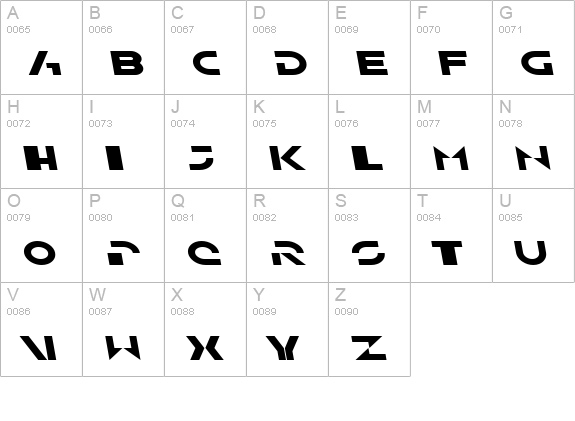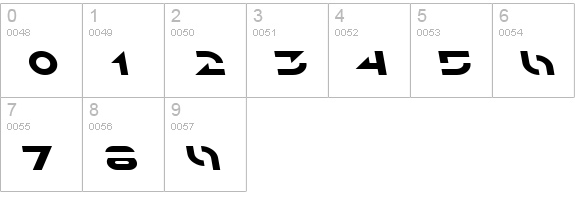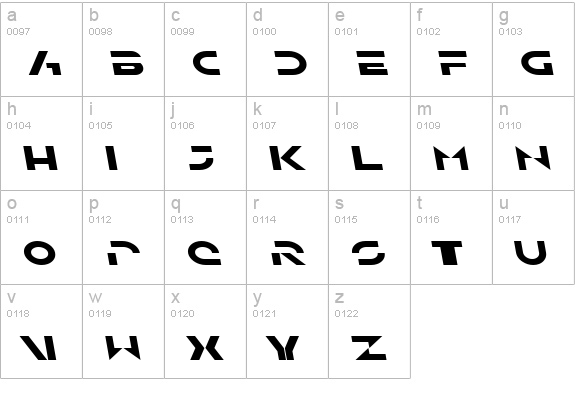
SF Solar Sailer Extended Italic Font Details
SF Solar Sailer Extended Italic is a distinctive, extended-width, italic variant in the SF typeface family \xE2\x80\x94 well suited to design and typography projects.
SF Solar Sailer Extended Italic font is a captivating and stylish typeface that will add a touch of elegance and modernity to your designs. The extended italic design gives it a sleek and sophisticated look, making it perfect for branding, headlines, and editorial projects that require a unique and eye-catching typography. The SF Solar Sailer Extended Italic font boasts a fusion of futuristic and classic elements, creating a harmonious balance between the past and the future. Its smooth curves and slightly slanted letters lend a sense of movement and energy, making it an excellent choice for projects that need to convey dynamism and forward-thinking. This font is not only aesthetically pleasing but also highly versatile. Its legibility and readability make it suitable for various design purposes, including print and digital media. Whether you're designing a logo, creating a poster, or developing a website, SF Solar Sailer Extended Italic font will elevate your designs and make them stand out from the crowd. One of the best things about SF Solar Sailer Extended Italic font is that it is available for free. Yes, you read that right! This exceptional font can be freely downloaded from FontsMarket.com, allowing you to enhance your design projects without breaking the bank. With its high-quality design and cost-effective availability, SF Solar Sailer Extended Italic font is a valuable asset for designers, creatives, and anyone looking to add a touch of sophistication to their work. Don't miss the opportunity to elevate your designs with SF Solar Sailer Extended Italic font. Download it for free at FontsMarket.com and unlock a world of possibilities for your next project.